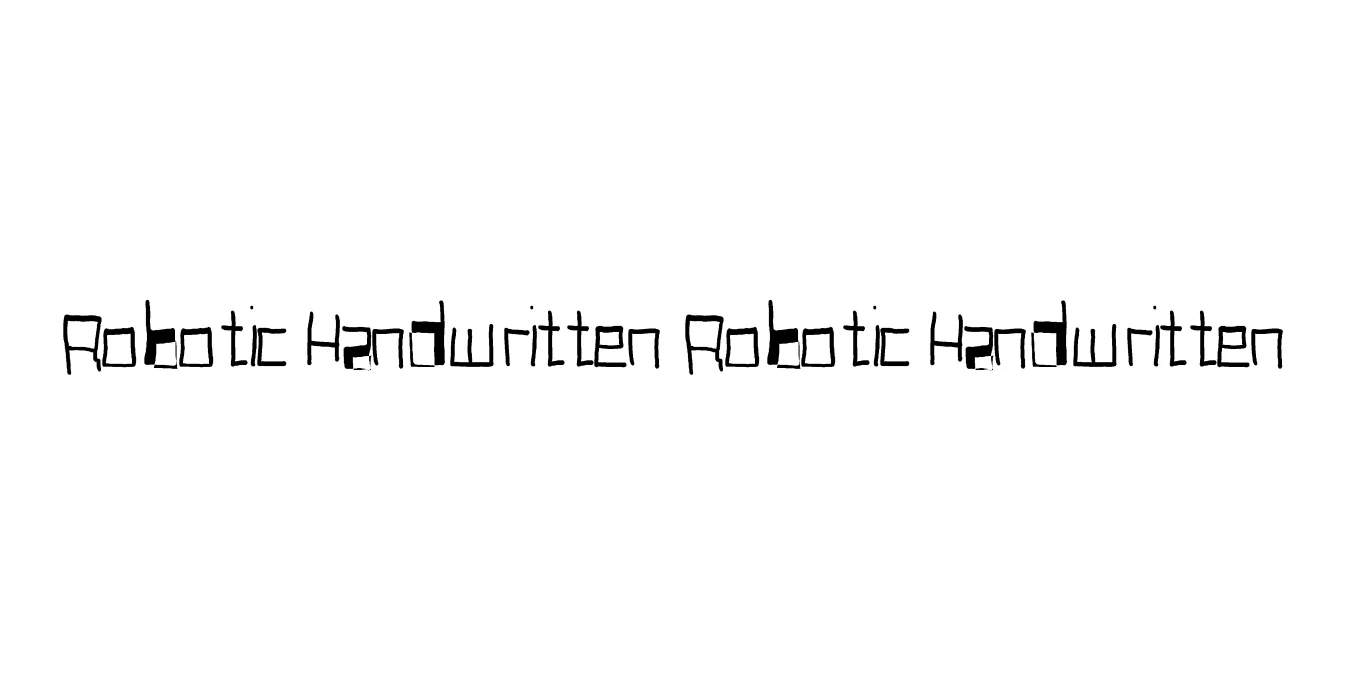
Robotic Handwritten Robotic Handwritten
Designed by TypoGraphic Design Studio
| Category | Script / Handwritten / Techno |
Robotic Handwritten is a unique typeface that bridges the gap between mechanical precision and human touch. Developed to simulate the movement of a robotic arm attempting manual calligraphy, the font features slightly jittery yet mathematically consistent strokes. This juxtaposition creates a visual identity that is both futuristic and organic, making it a standout choice for projects that explore themes of artificial intelligence, automation, and digital communication.
Since its release, the font has gained popularity in the creative technology and sci-fi communities. Its legibility remains high despite its unconventional origin story, ensuring it works well for both display headers and short blocks of body text. The character set includes standard Latin glyphs with a distinct "digital ink" aesthetic, providing designers with a versatile tool for creating immersive, modern interfaces and thematic branding materials.
Robotic Handwritten Best Uses
Ideal for sci-fi posters and movie titles.
Perfect for tech-themed blogs and digital portfolios.
Great for AI startup logos and innovative product packaging.
Captures attention in high-tech aesthetic Instagram posts.